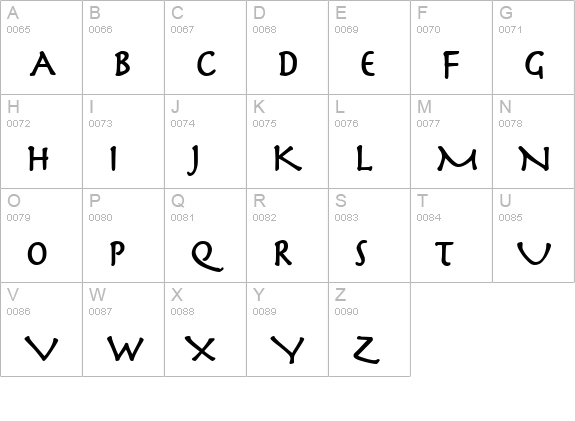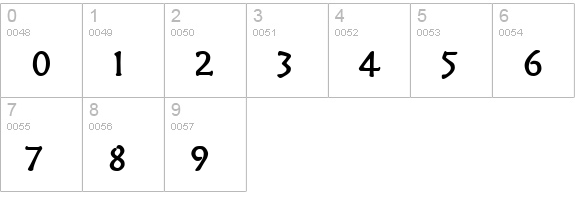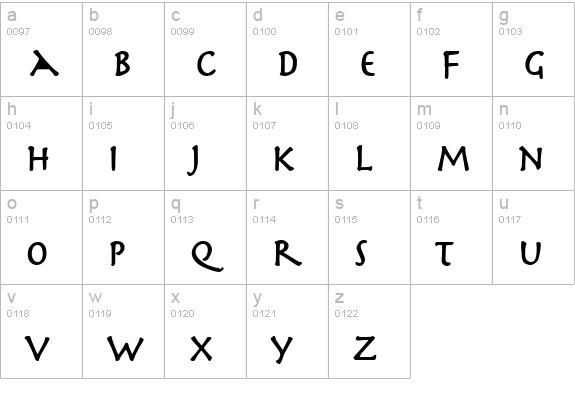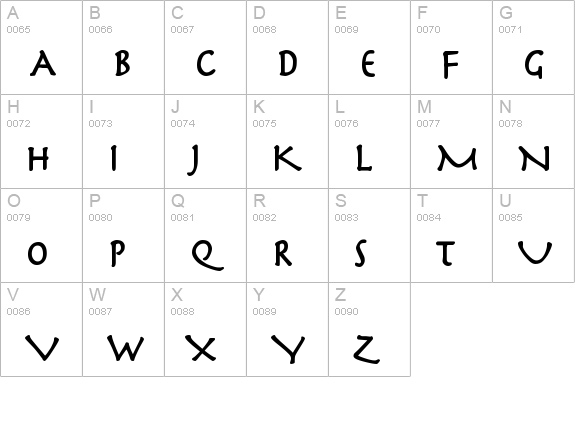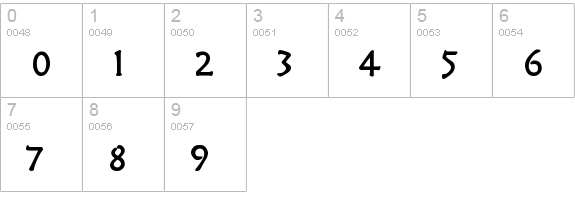
Mythology Bold is a strong, high-contrast variant in the Mythology typeface family \xE2\x80\x94 well suited to headlines, attention-grabbing titles, and strong calls-to-action.
Mythology Bold font is a striking and powerful typeface inspired by ancient myths and legends. With its bold and dramatic design, it exudes a sense of mystery and grandeur, making it perfect for adding a touch of mythological charm to your projects. The strong lines and intricate details of Mythology Bold font make it ideal for headlines, titles, and other prominent text elements that demand attention. This unique font is not only visually impactful but also versatile, lending itself well to a variety of design applications. Whether you're working on a fantasy-themed project, creating a poster for a mythical event, or simply looking to add a touch of magic to your designs, Mythology Bold font is sure to make a bold statement. Best of all, Mythology Bold font is free to download at FontsMarket.com, allowing you to easily access this captivating typeface and incorporate it into your design projects without any cost. Don't miss out on the opportunity to enhance your creations with the enchanting allure of Mythology Bold font. Download it today and let your imagination soar.